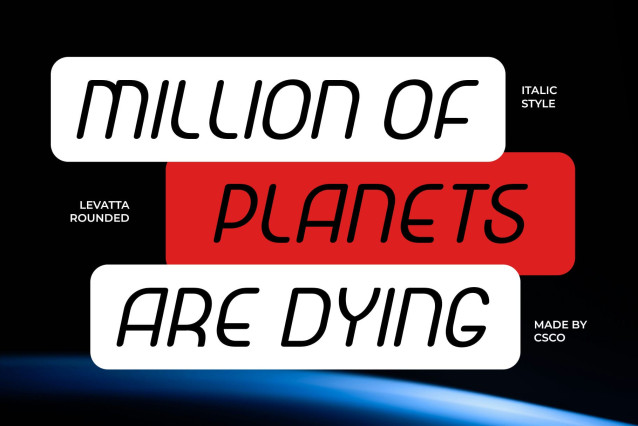
Levatta Rounded Font
Levatta Rounded Font is a modern sans-serif font that combines precise geometric forms with subtly softened, rounded edges. It delivers a clean, contemporary look that feels both professional and approachable—making it an excellent choice for today’s forward-thinking design needs.